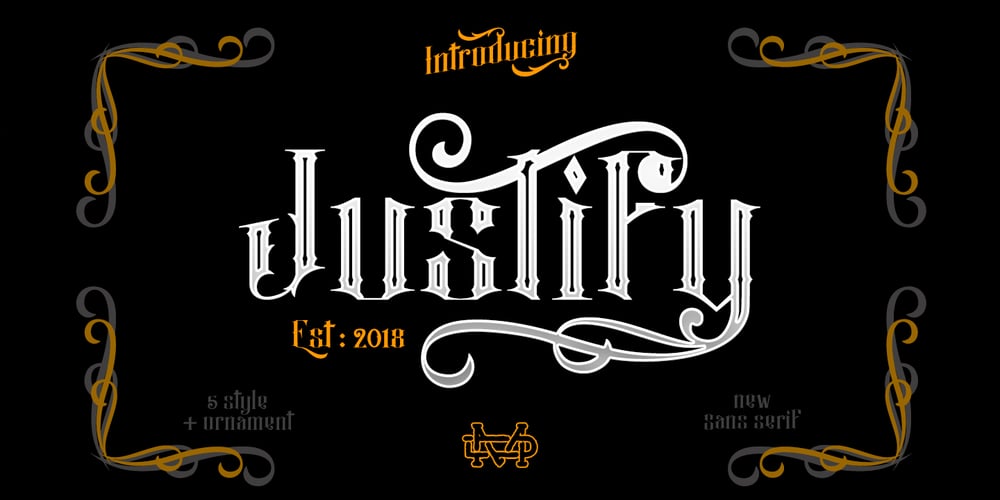
Justify Font Family was designed by Suandana ipandemade and published by madeDeduk. Justify contains 4 styles and family package options. Justify is a font family inspired in tattoo letters! Justify includes six styles plus ornaments. Features: – UPPERCASE – lowercase – Number & Symbol – International Glyphs – Alternative UPPERCASE – Alternative lowercase – Ligatures